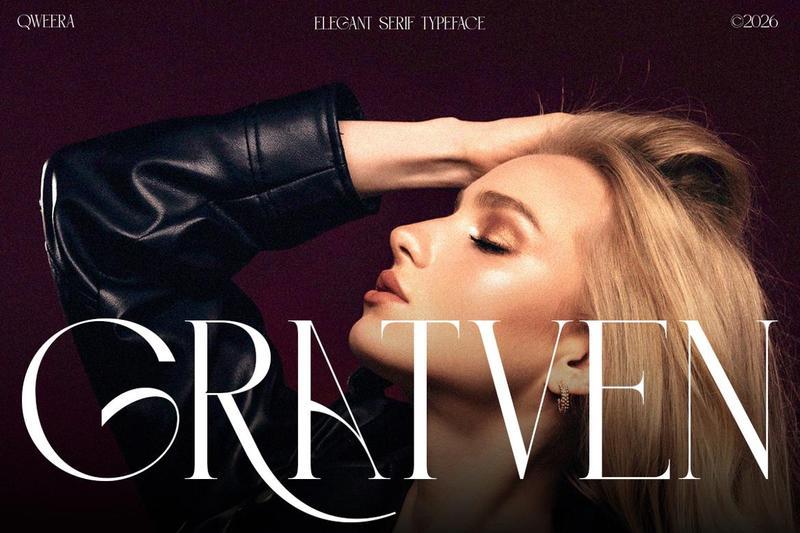
**Gratven** is an elegant luxury serif typeface designed to bring sophistication, glamour, and premium editorial style into modern creative projects. Featuring refined letterforms, graceful curves, stylish alternates, and elegant ligatures, this font creates a polished typographic presence for high-end design work.
Perfect for luxury branding, fashion editorials, beauty packaging, perfume labels, boutique identities, magazine covers, premium logos, and upscale marketing materials.
Gratven blends modern serif refinement with bold fashion appeal, making it an excellent choice for designers seeking elegant typography with a confident luxury personality.
**Features**
– Uppercase & lowercase
– Alternates & ligatures
– Multilingual support
– Professional kerning
– Regular & Italic
**Perfect For**
Luxury branding, fashion editorials, beauty packaging, perfume labels, boutique logos, magazine covers, premium stationery